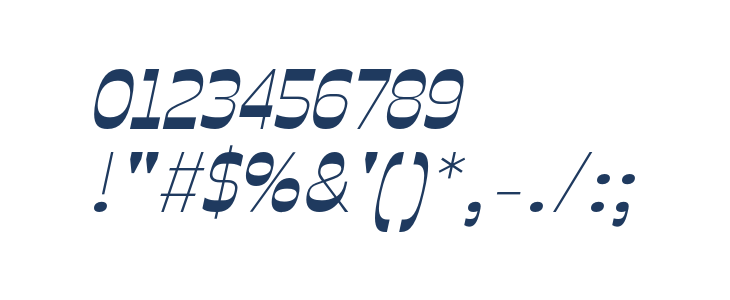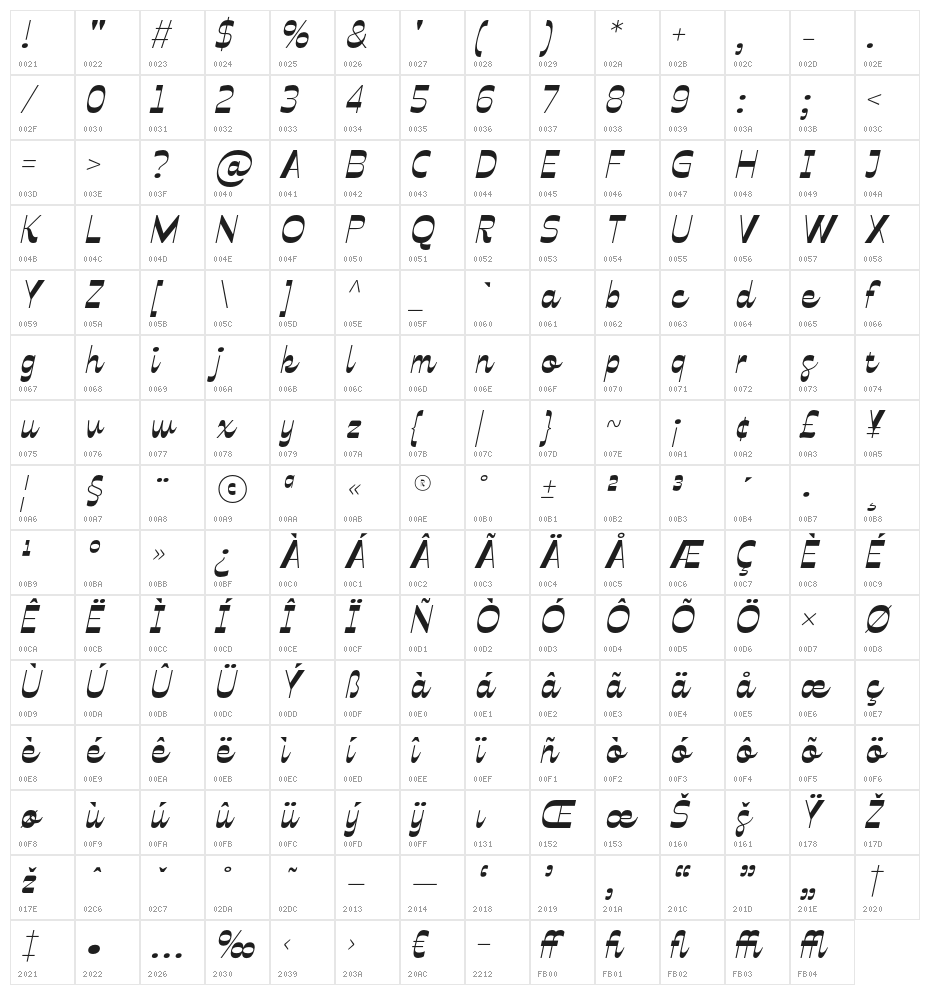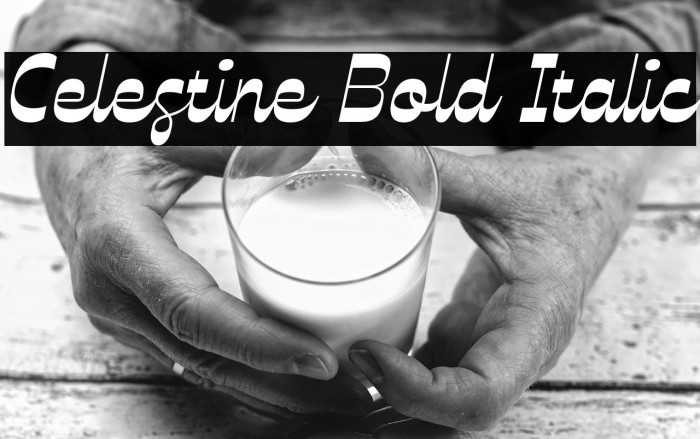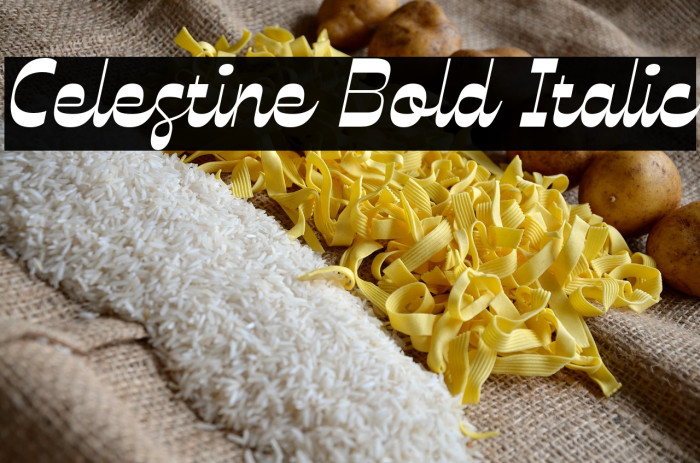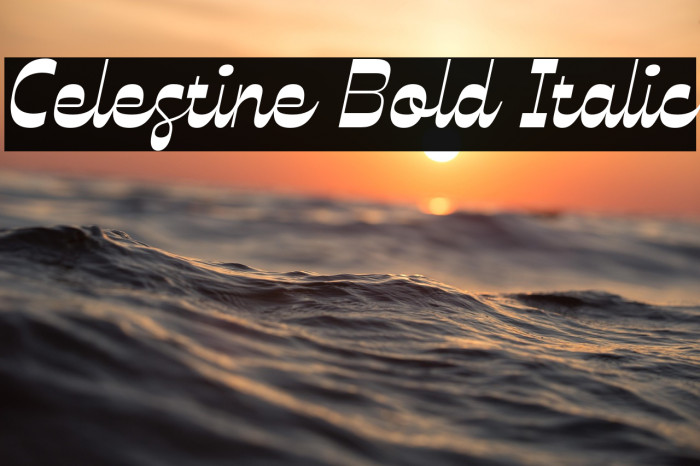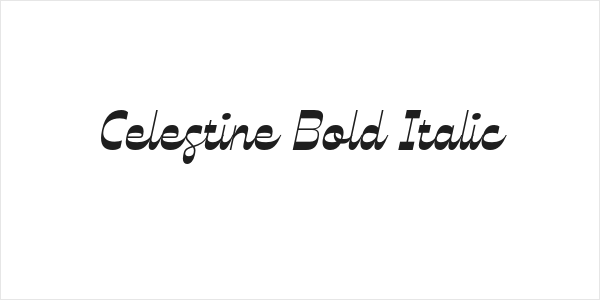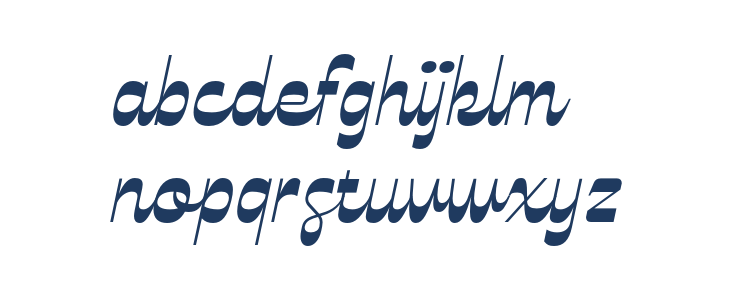
Celestine Bold Italic Font
Celestine Bold Italic Description
This font features a dynamic and modern style with a bold and italicized appearance. The uppercase letters are sleek and slightly condensed, giving a sense of forward movement and energy. The lowercase letters maintain a consistent flow, with smooth curves and a slight slant that enhances readability. Numbers are bold and clear, making them stand out effectively. Special characters are well-integrated, maintaining the overall aesthetic of the font. The combination of boldness and italics provides a unique and stylish look, suitable for various creative applications.
Use CaseHeadlines, Logos, Branding
Proposed ProjectsIdeal for branding, advertising, headlines, and modern design projects.